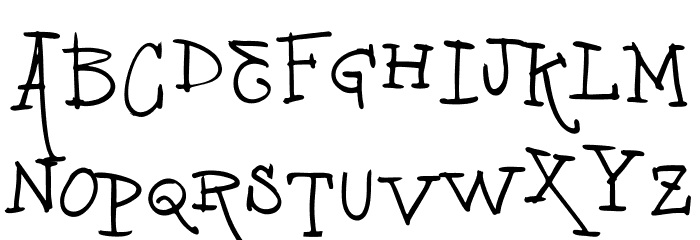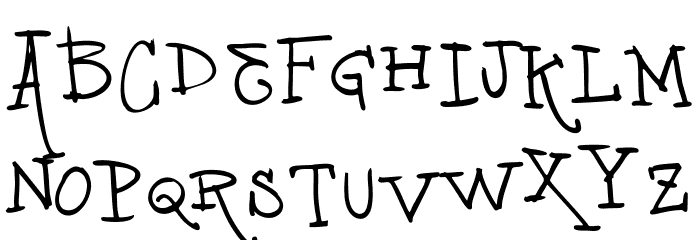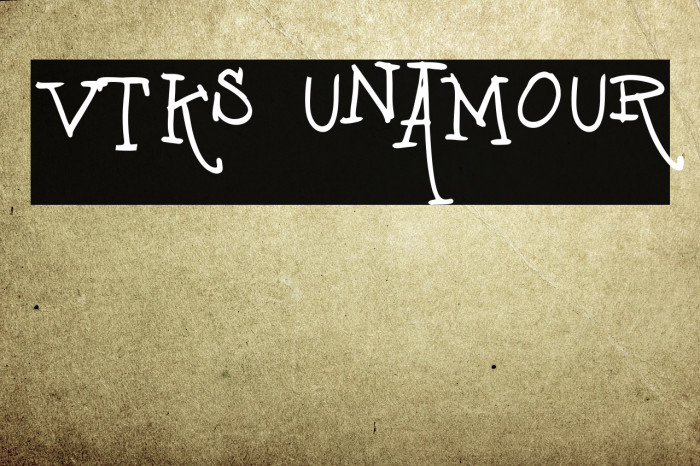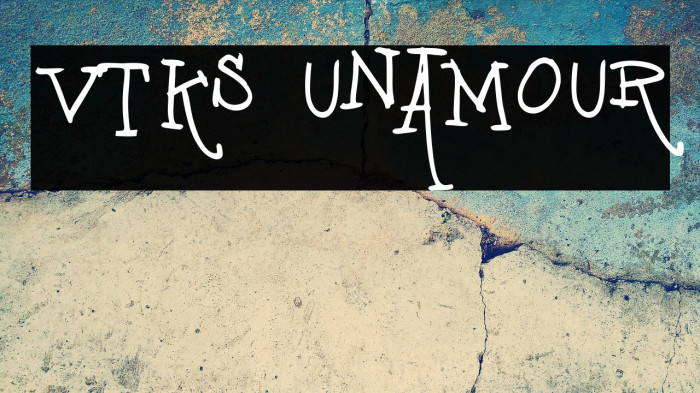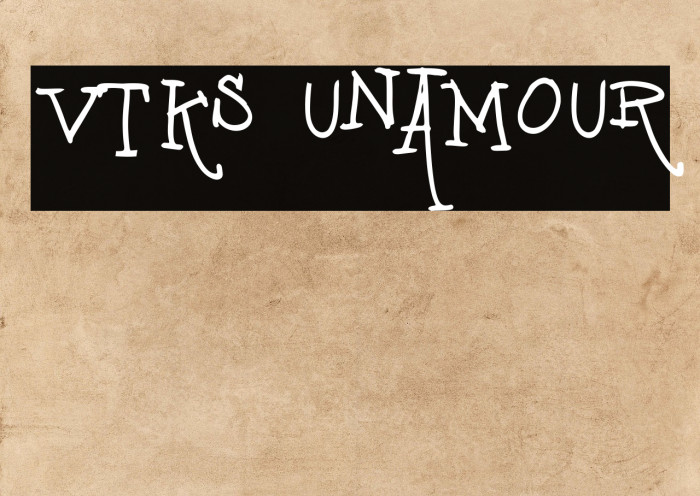
vtks unamour Font
This font features a playful and whimsical style, characterized by its irregular and hand-drawn appearance. The letters have a casual, almost doodle-like quality, with varying line thicknesses and quirky, uneven shapes. The uppercase and lowercase letters maintain a consistent style, with exaggerated curves and loops that give the font a lively and energetic feel. The numbers and special characters follow the same design principles, ensuring a cohesive look throughout. This font is perfect for projects that require a fun and informal touch, such as children's books, playful branding, or creative invitations.
A playful, hand-drawn font with whimsical, irregular shapes.
- Proposed Projects: Ideal for children's books, playful branding, and creative invitations.